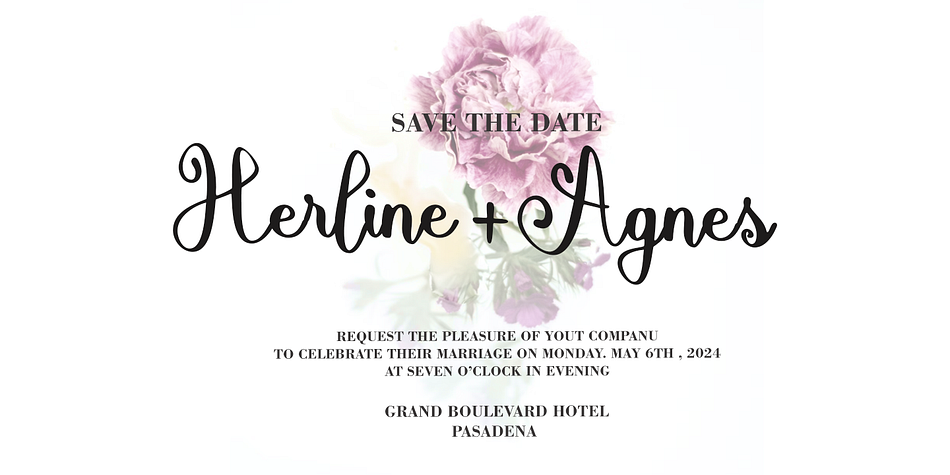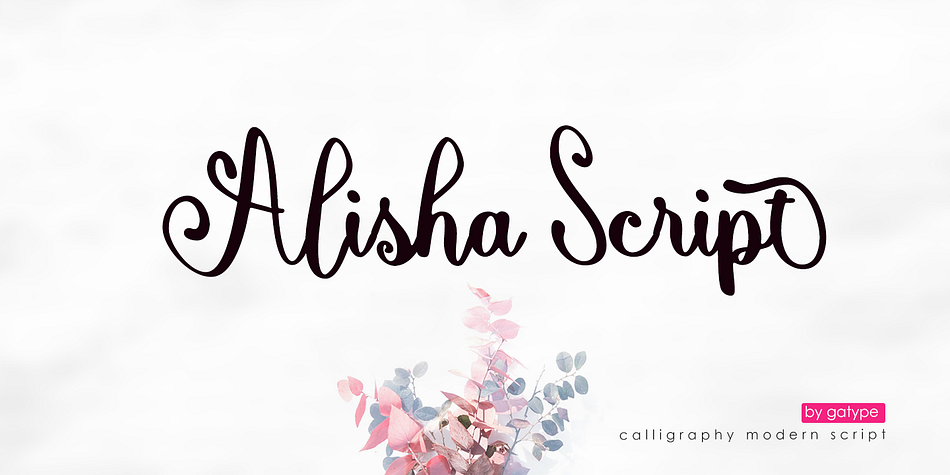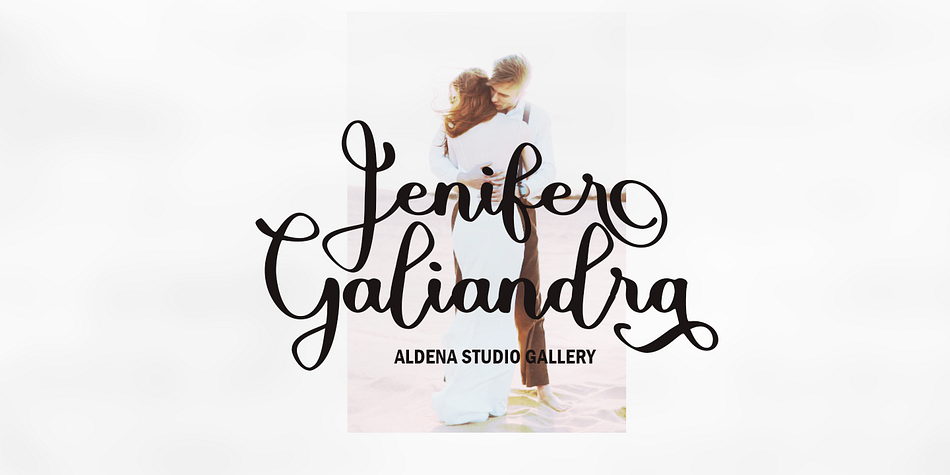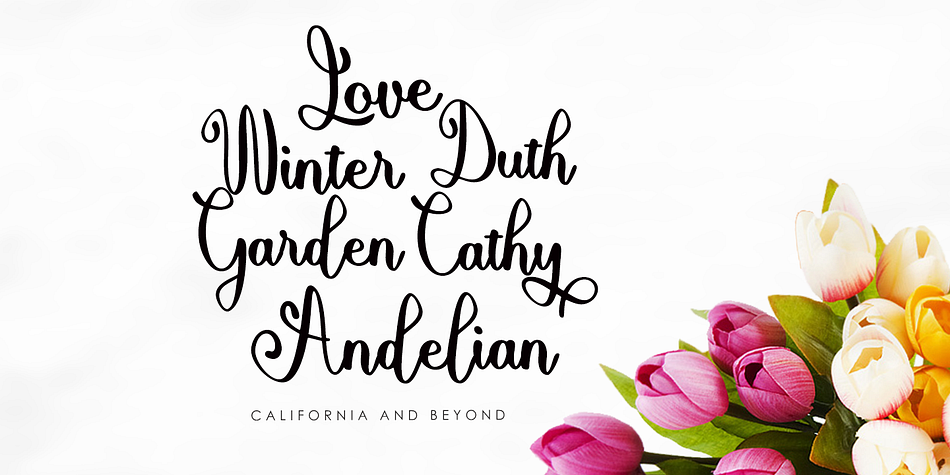
Alishan Script
Alishan Script is a script font family published by Gatype.
Alishan Script font model you can get now! the script has been given a combination of fantasy and handwritten ink. This font will look beautiful in all designs, Wedding designs, branding materials, blog titles, quotes and invitations, business cards.